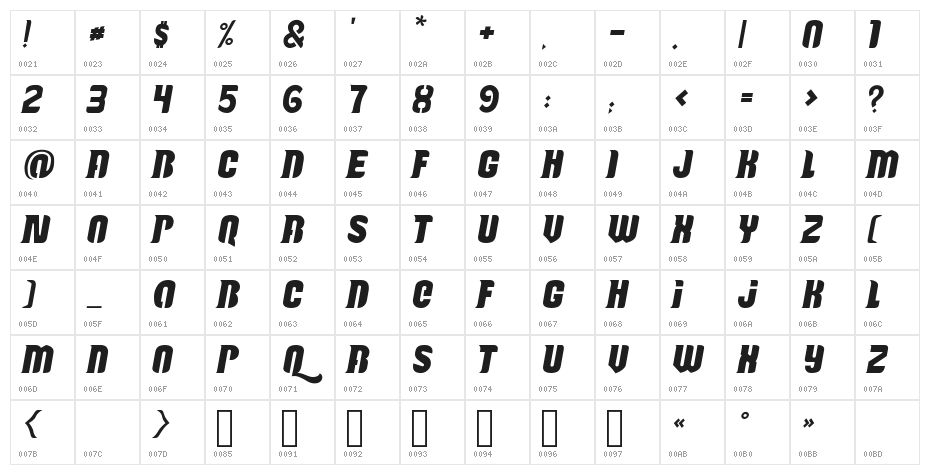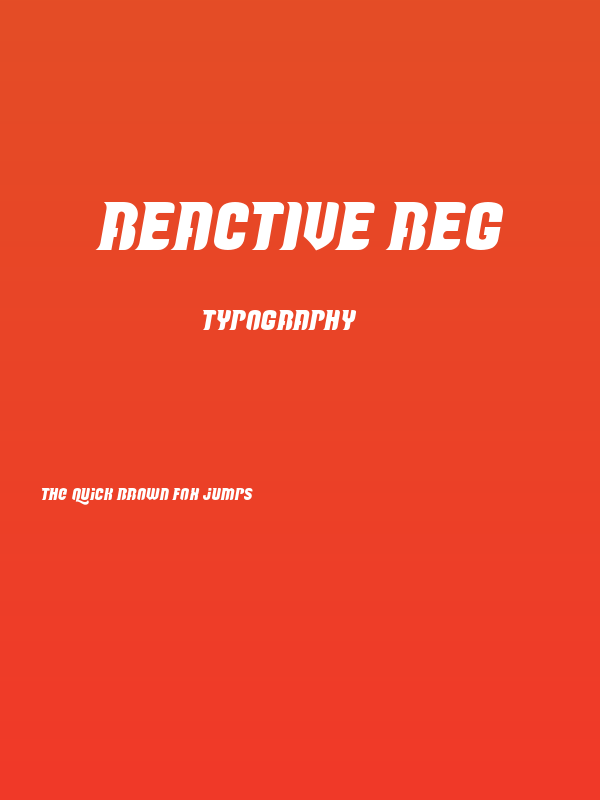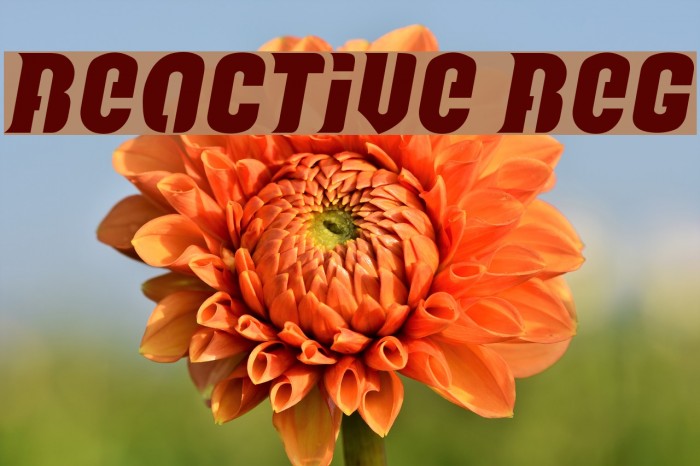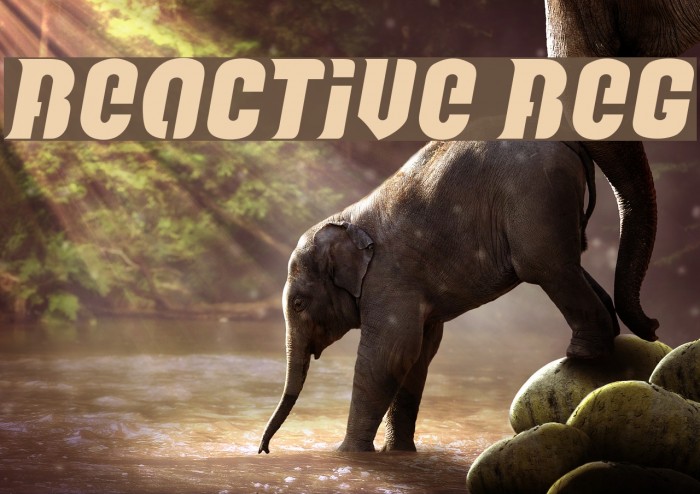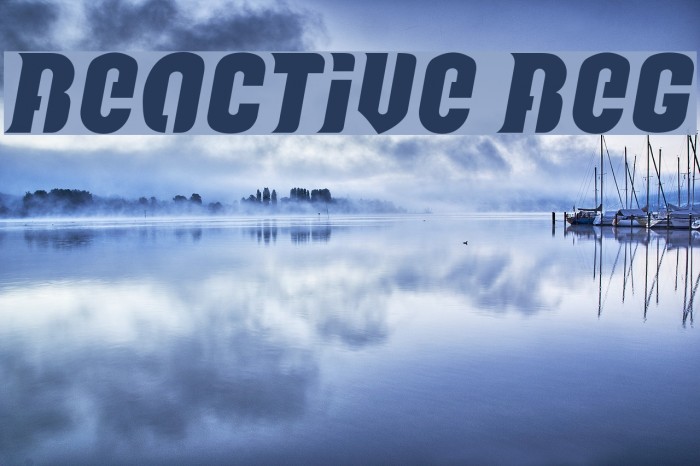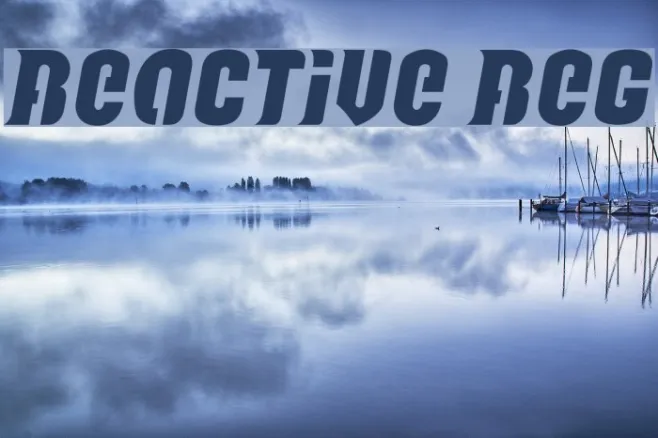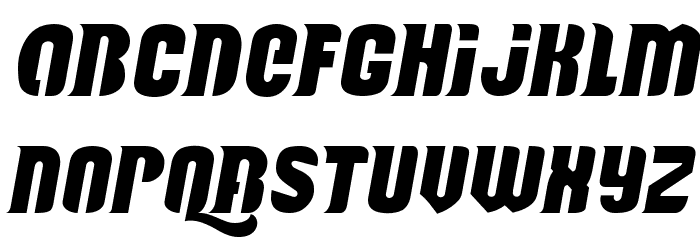
Reactive Reg Font
Reactive Reg Description
This font features a bold and dynamic style with a strong presence. The characters are slightly slanted, giving a sense of motion and energy. The strokes are thick and consistent, creating a powerful visual impact. The uppercase and lowercase letters maintain a uniform width, while the numbers and special characters are designed to complement the overall aesthetic. The font's unique style makes it suitable for attention-grabbing designs.
| Proposed Projects | Ideal for sports branding, posters, and dynamic advertising campaigns. |